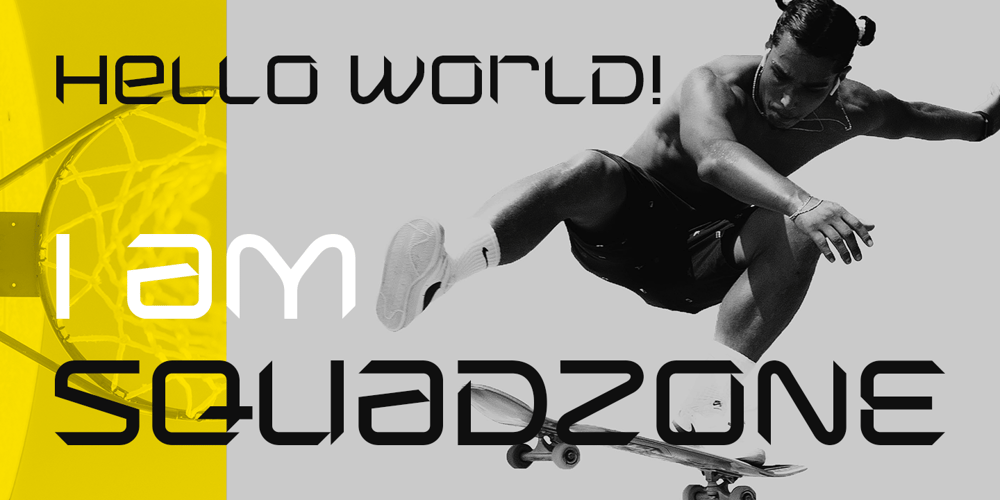
Squadzone Font Family was designed by Bogdan Balatchi and published by DePlictis Types. Squadzone contains 1 styles and family package options. SQUADZONE it’s a young & sportive unicase style font, having both uppercase and a few smallcase alternating letters that gives it a unique look. It’s geometric anathomy of the letters may have two different types of endings or detail: straight and sharp cut out angles at 45 degrees. This offers a few alternatives in headlines or even logotype purposes that are realy encouraged to use for.